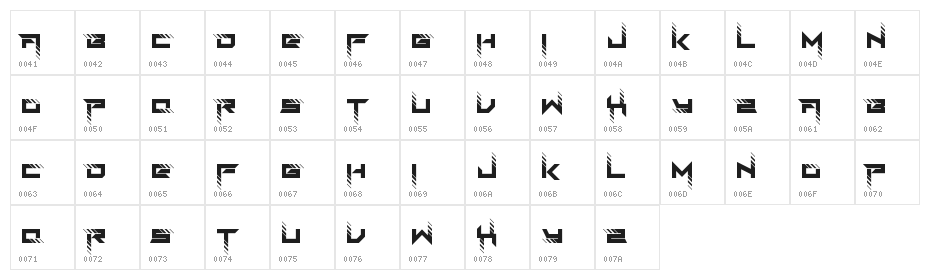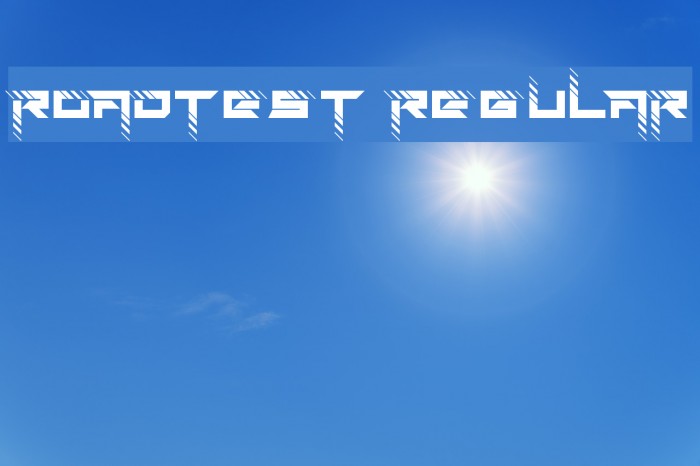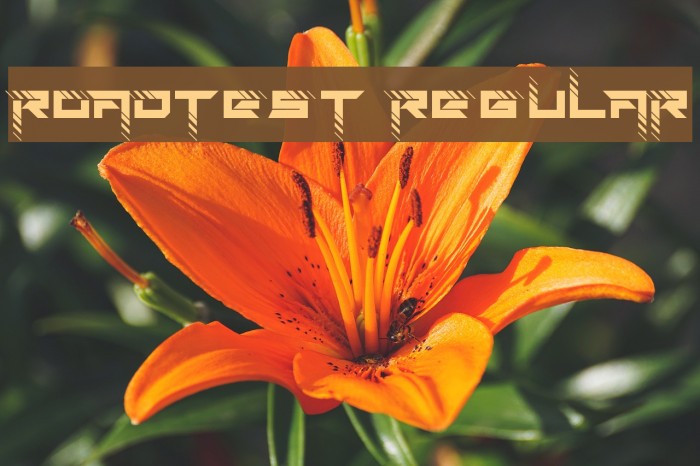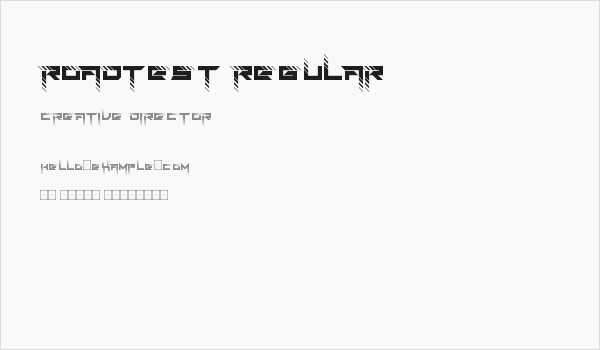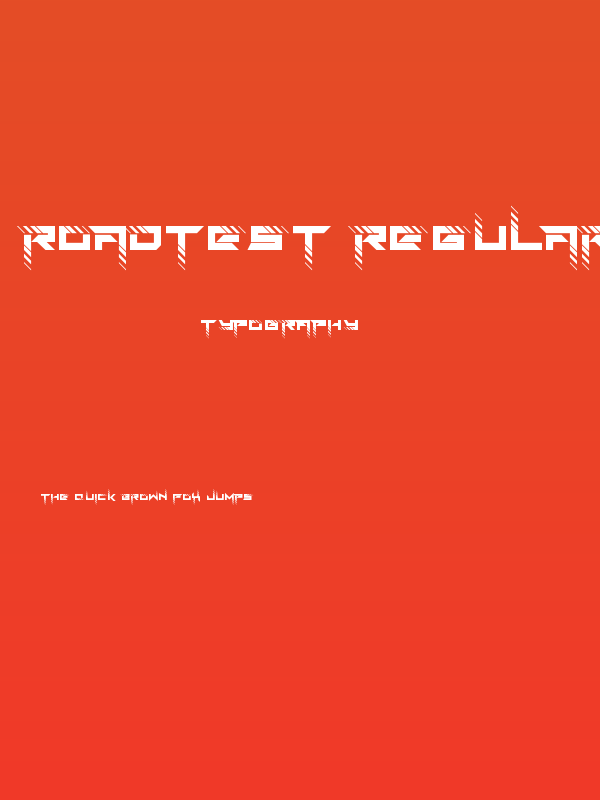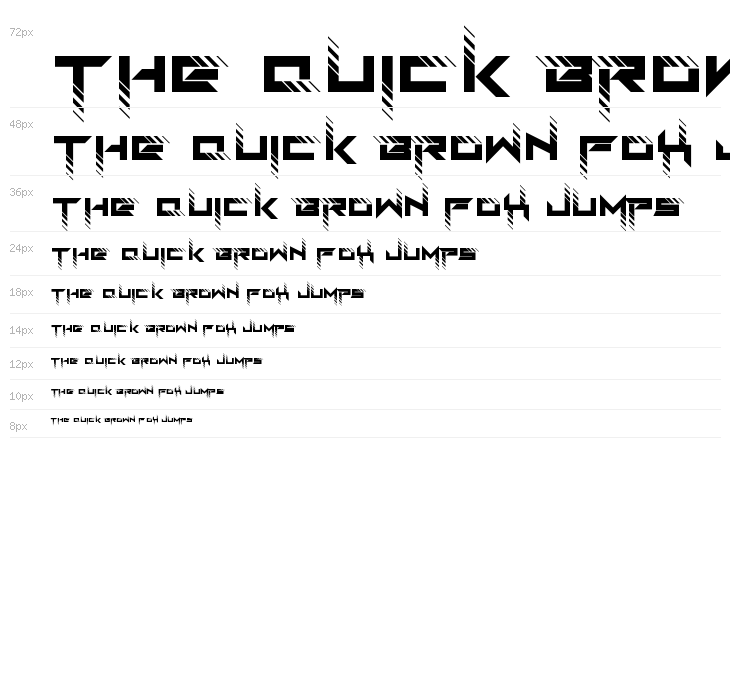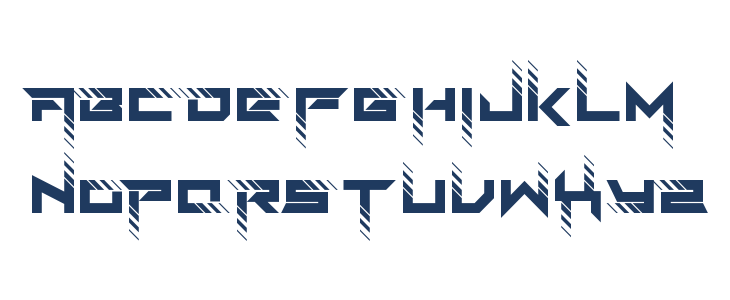
Roadtest Regular Font
Roadtest Regular Description
This font features a bold and futuristic design with sharp, angular lines and a distinct geometric style. Each character is crafted with precision, incorporating diagonal stripes that add a sense of movement and dynamism. The uppercase letters are particularly striking, with a uniform height and width that create a cohesive look. The lowercase letters maintain the same angular aesthetic, ensuring consistency throughout. The numerals and special characters are equally bold, making this font suitable for attention-grabbing designs. Its unique style is perfect for projects that require a modern and edgy appearance.